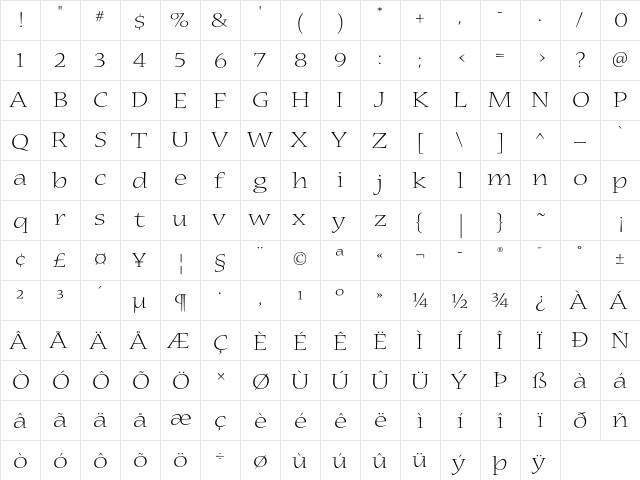
Nueva Std Light Extended Font Preview
Nueva Std Light Extended
Nueva Std Light Extended Font Details
| Style | Light Extended |
| Designer | Carol Twombly |
Design Context for Nueva Std Typeface
Nueva Std offers clean, dependable letterforms without strong stylistic allegiance, making it a practical choice for designers who need flexibility. Its slender proportions lend an understated elegance to any composition.